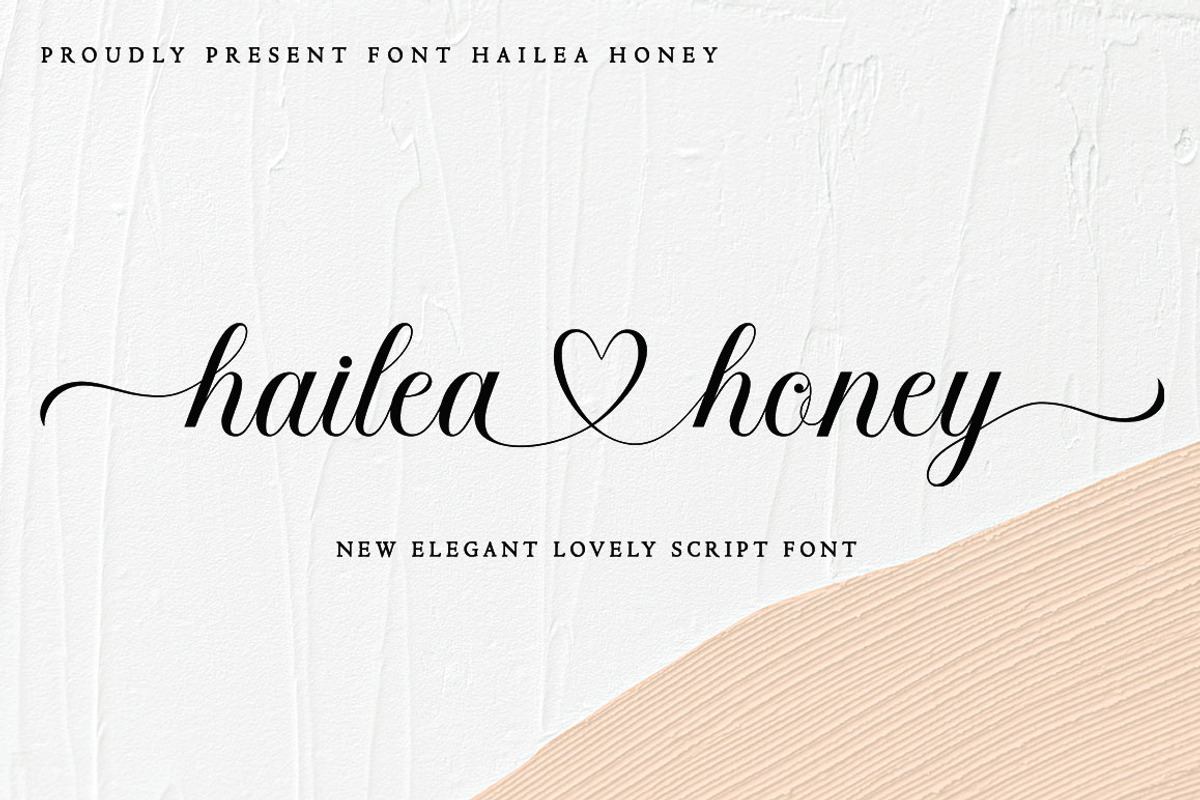
Hailea Honey Font Free Download is a charming and playful handwritten typeface that combines a casual, friendly feel with a touch of elegance. With its smooth, rounded letterforms and whimsical charm, Hailea Honey is perfect for branding, invitations, greeting cards, social media graphics, and any project that needs a light-hearted and personal touch.
Hailea Honey Font Free Download adds warmth and personality to your typography, making it ideal for designs that need to feel authentic and inviting. Whether you're crafting a logo, creating wedding invitations, or adding a handwritten touch to promotional materials, Hailea Honey brings a sweet, stylish flair to your projects. Download it today and give your designs a personal, hand-drawn feel with Hailea Honey!